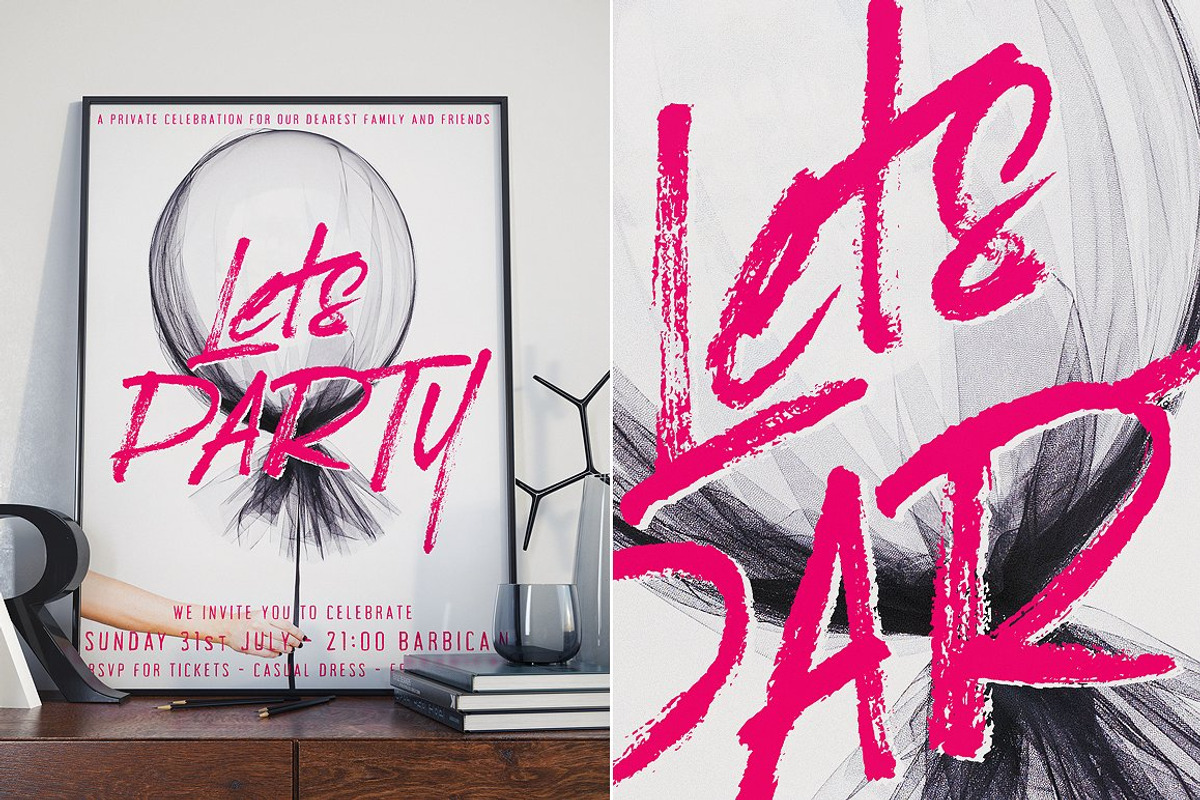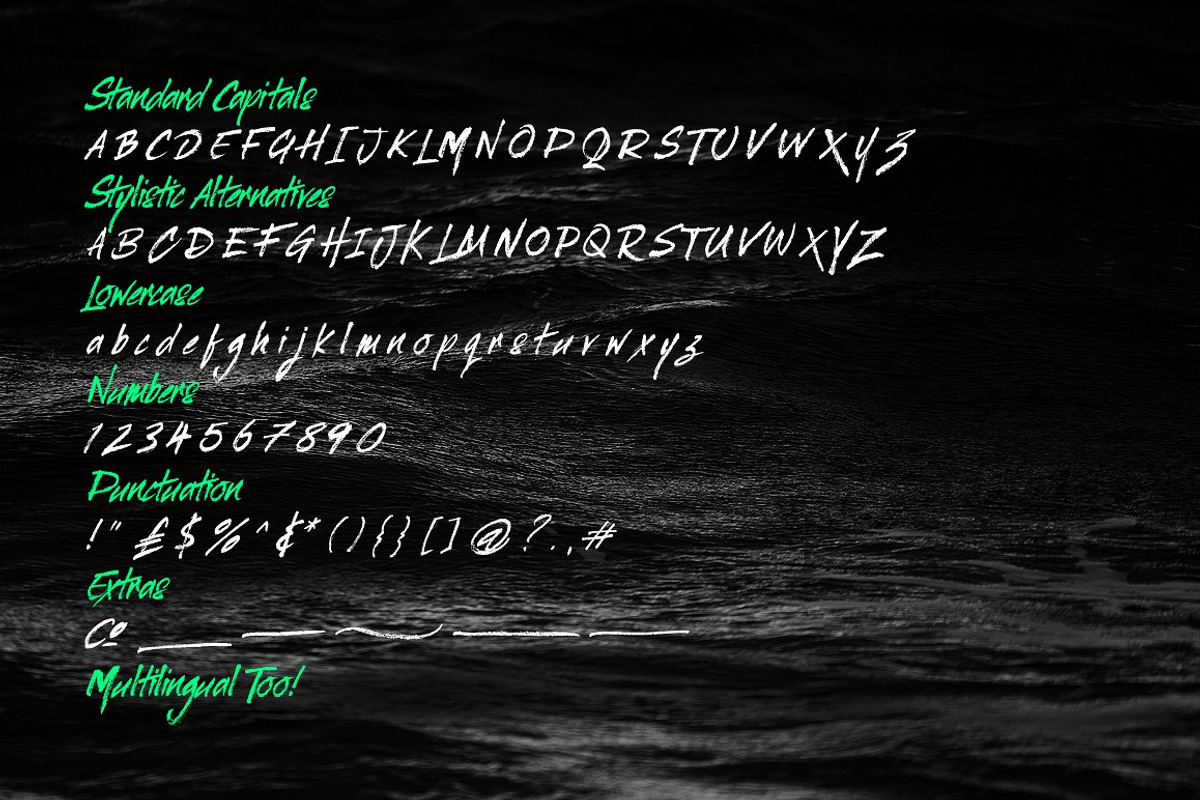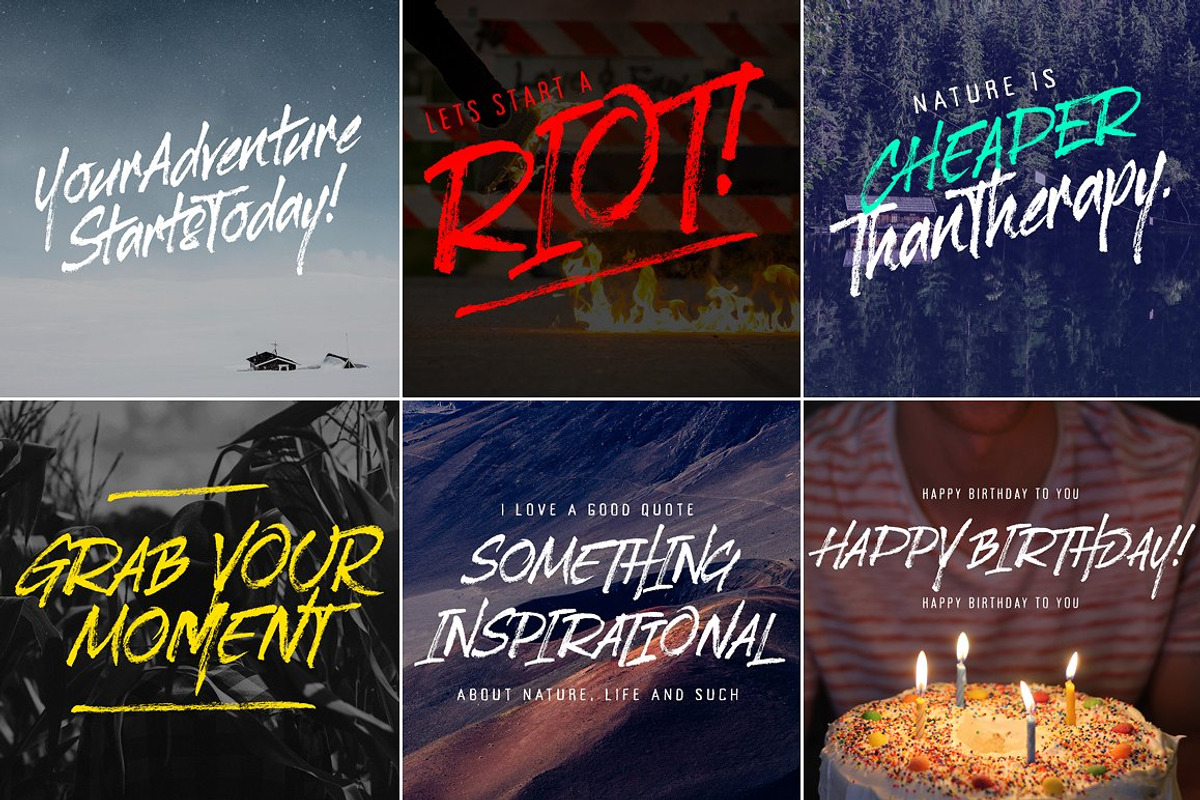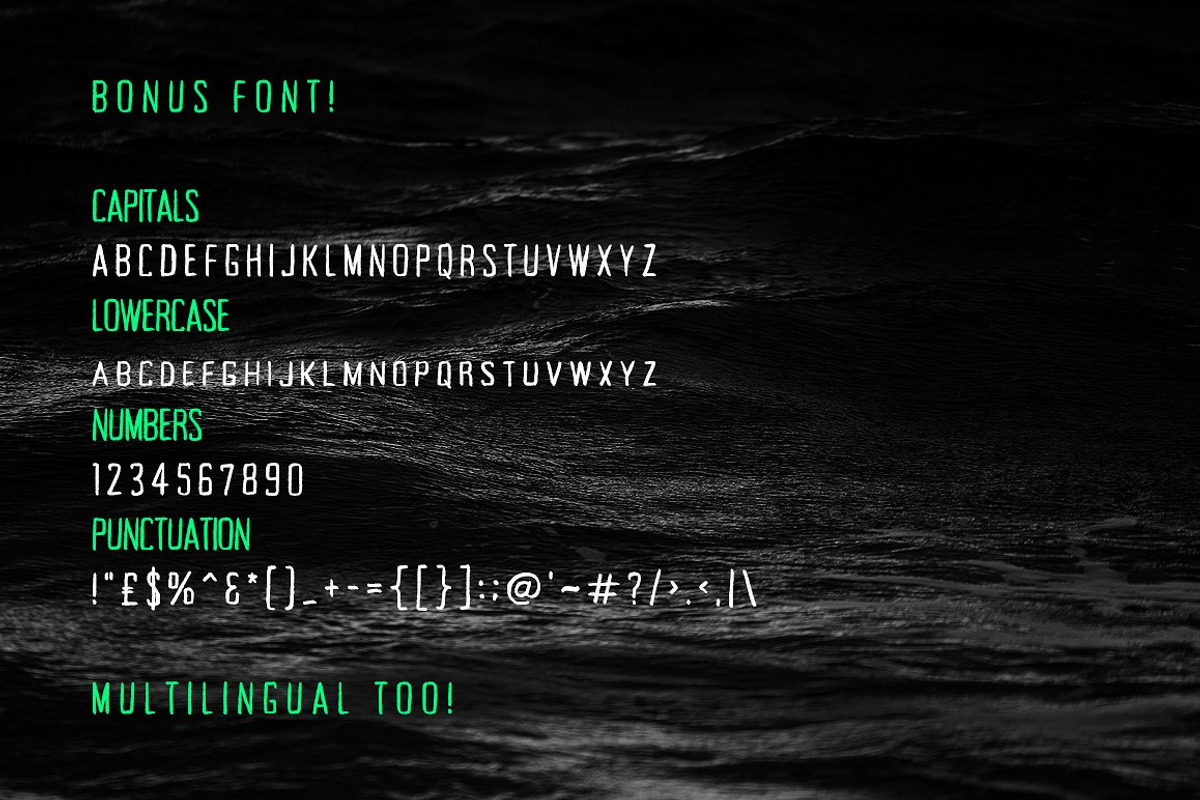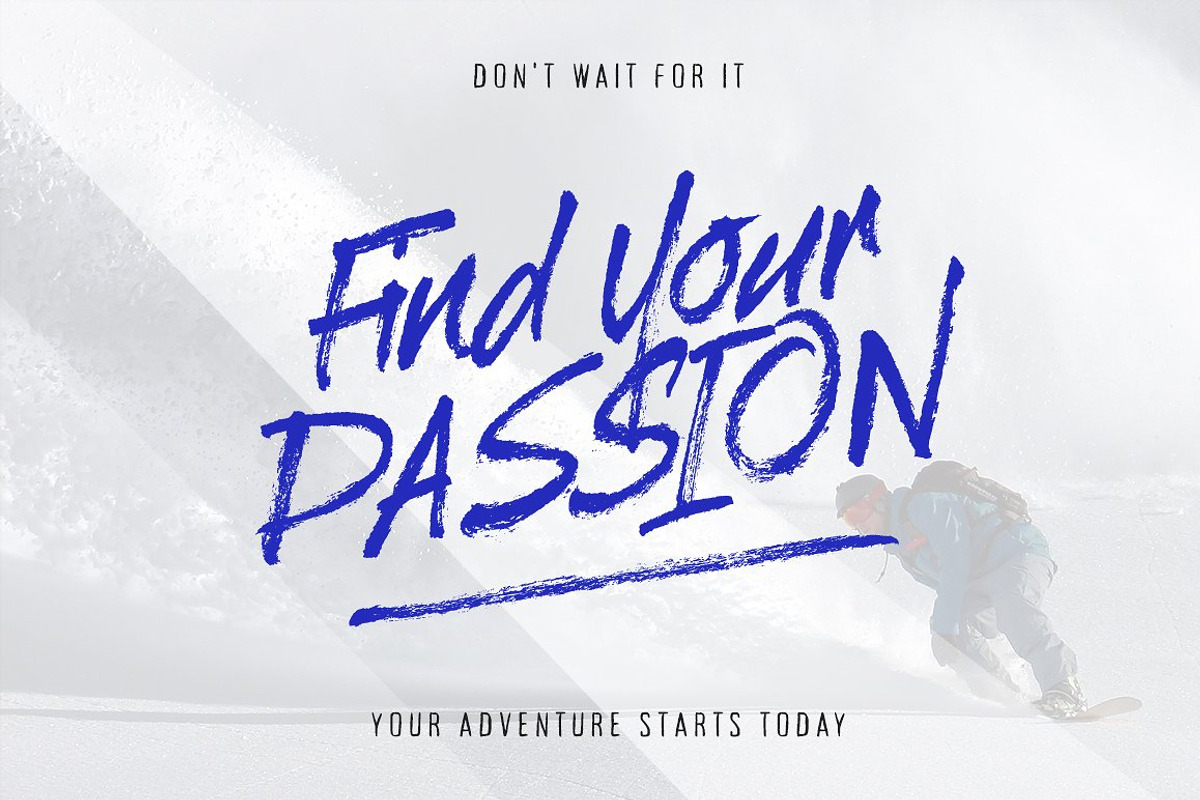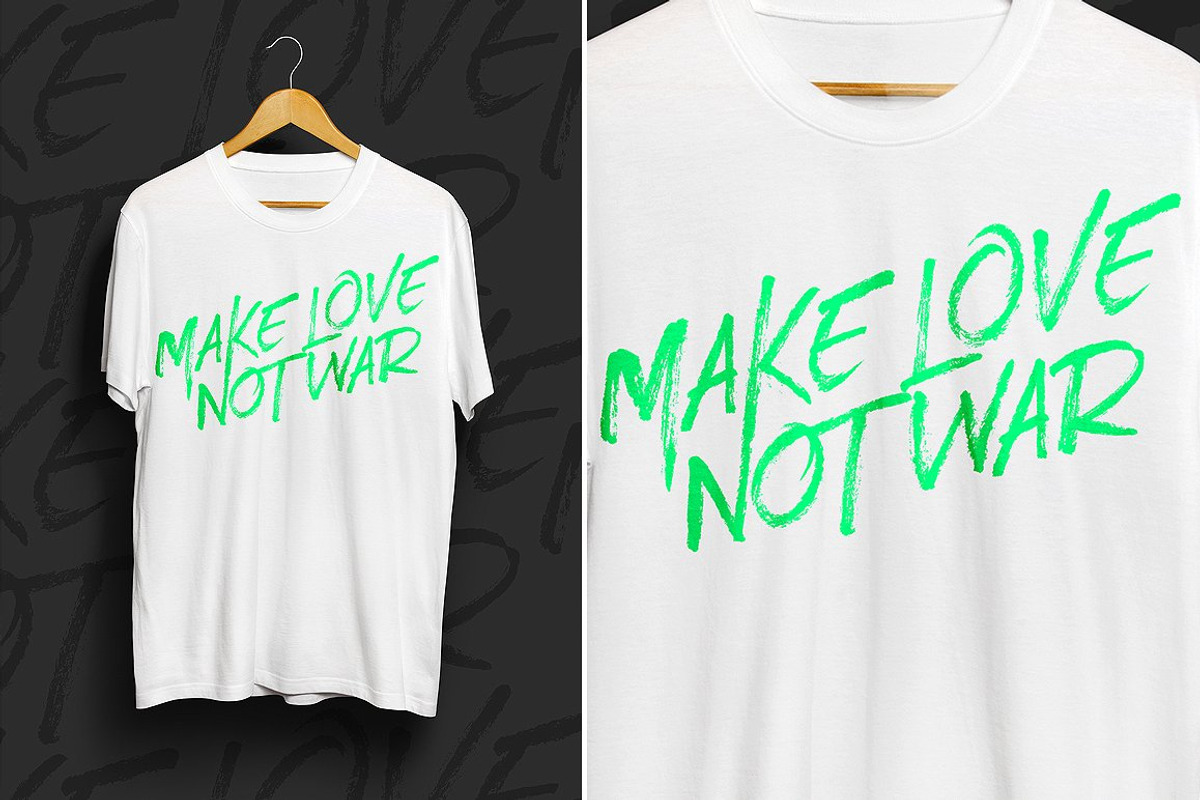
Whicker Font Duo
Whicker Font Duo by Tom Chalky is a font selected for branding, posters, packaging, typography.
- Every common and many uncommon letter combinations have had OpenType kerning rules applied to them to ensure that Whicker is always on top f
- All of the uppercase letters in the Whicker typeface have stylistic alternatives available.
- Also, the following punctuation glyphs - = + ~ / are handy brush strokes!
- Whicker Brush Font (Multilingual, stylistic alternatives, and brush stroke extras) Whicker Bonus Sans (Multilingual, all capitals, and small
- Whicker Regular
- Whicker Bonus
Why Whicker Font Duo is worth a look
Whicker Font Duo by Tom Chalky fits naturally into Branding, posters, packaging, typography.